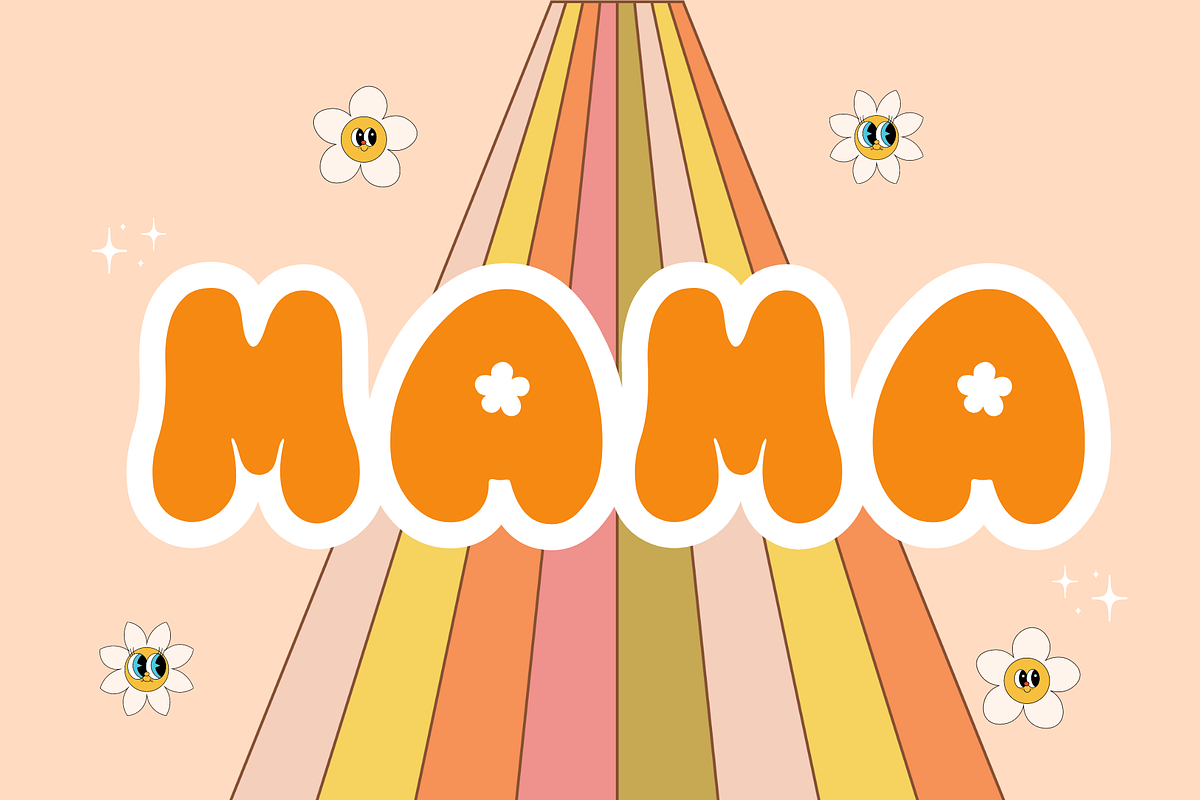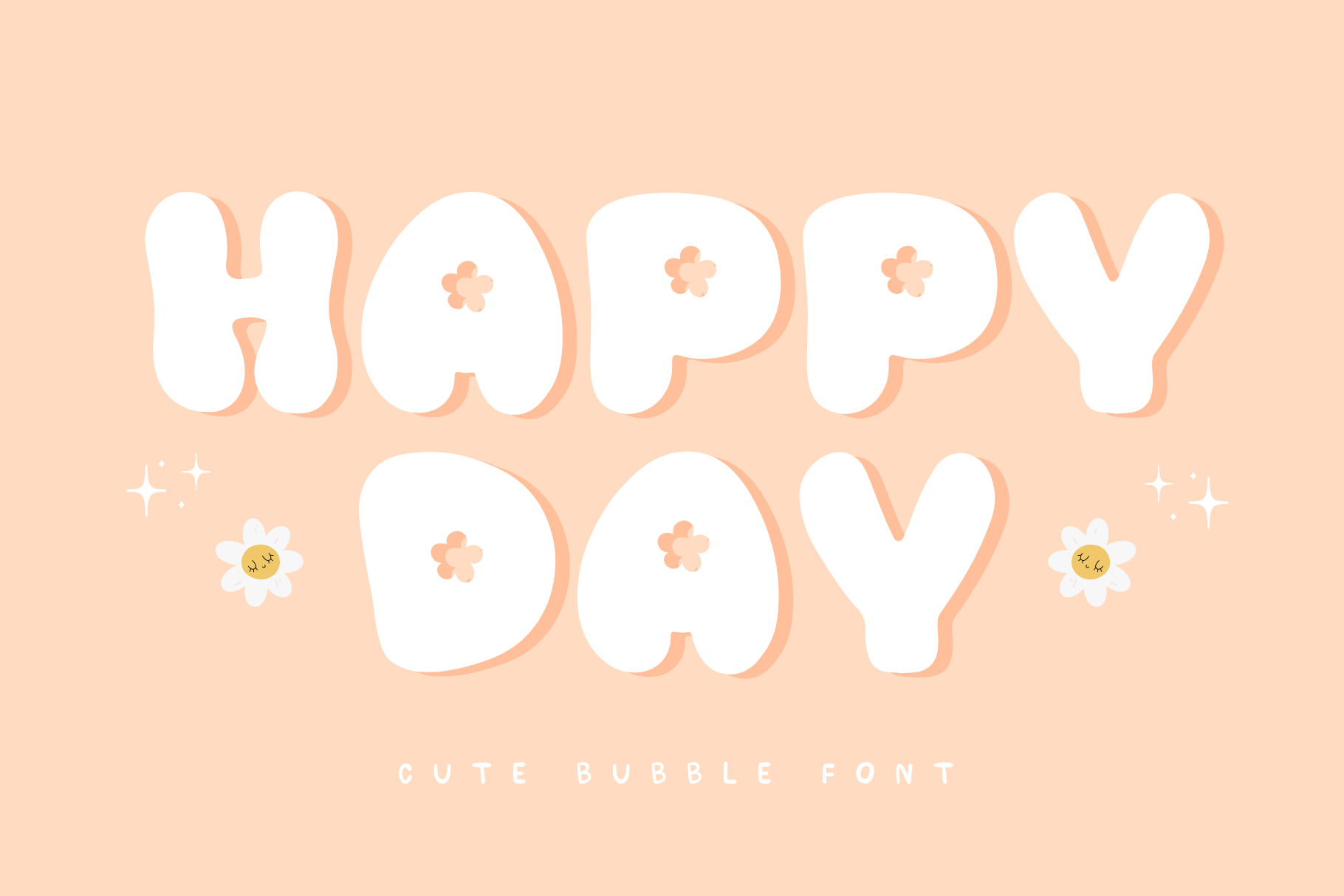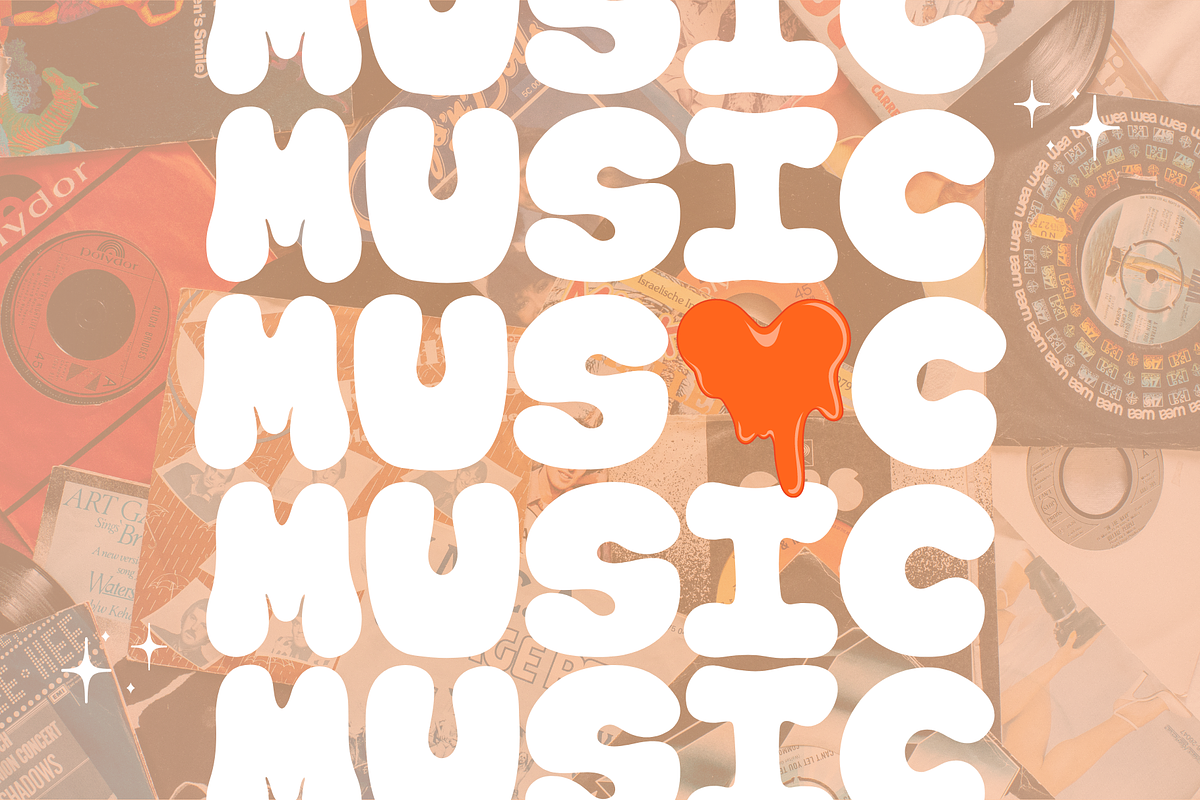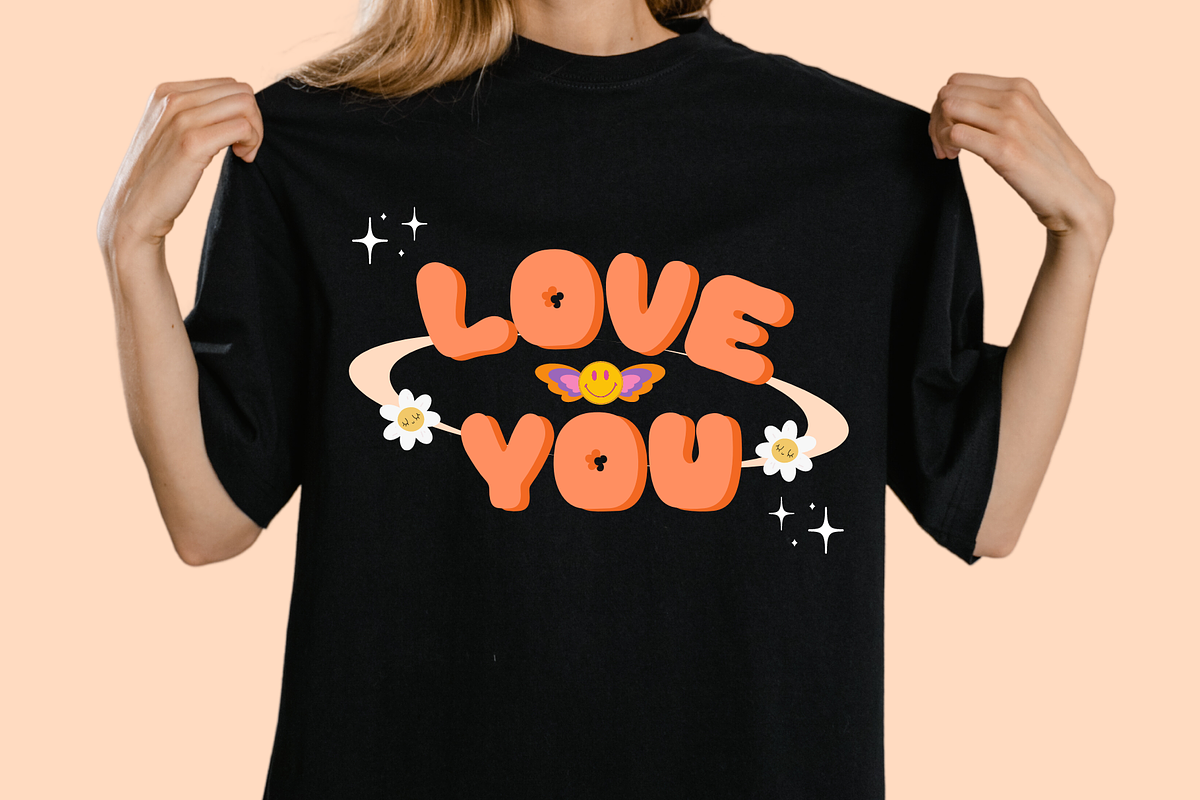
Happy Day - Cute Decorative Font Duo
Happy Day is a playful and charming font that exudes happiness and joy. Its bubbly and curvy design makes it perfect for projects that require a fun and lighthearted touch, such as stickers, sublimation, posters, and social media graphics.